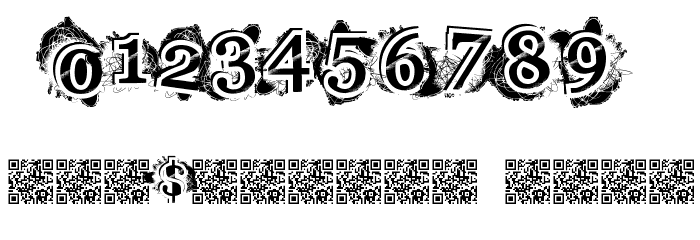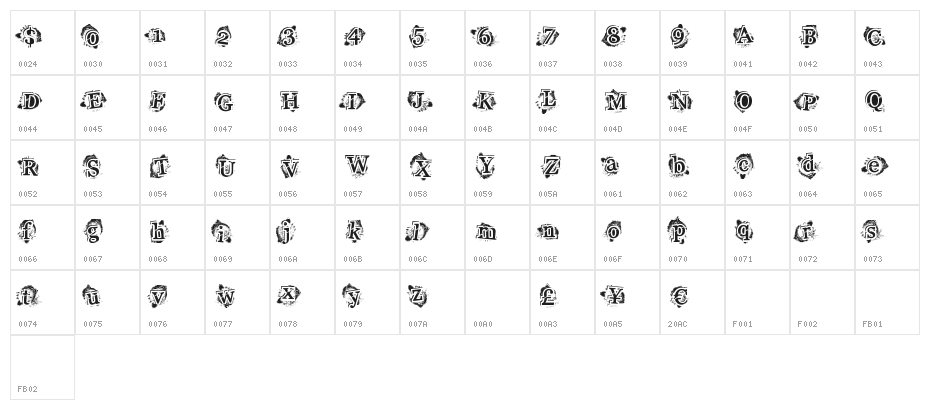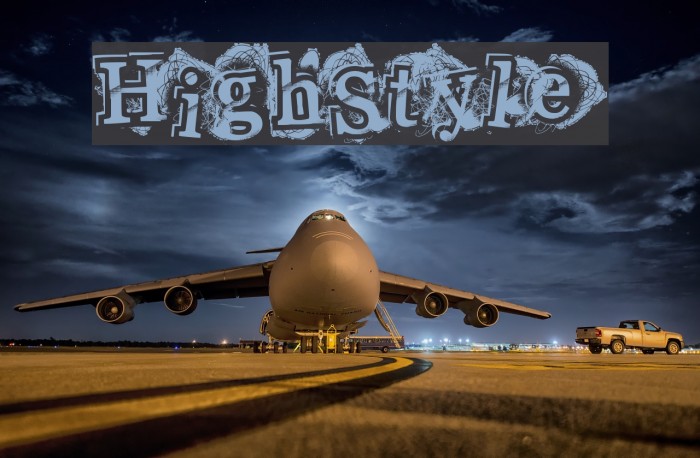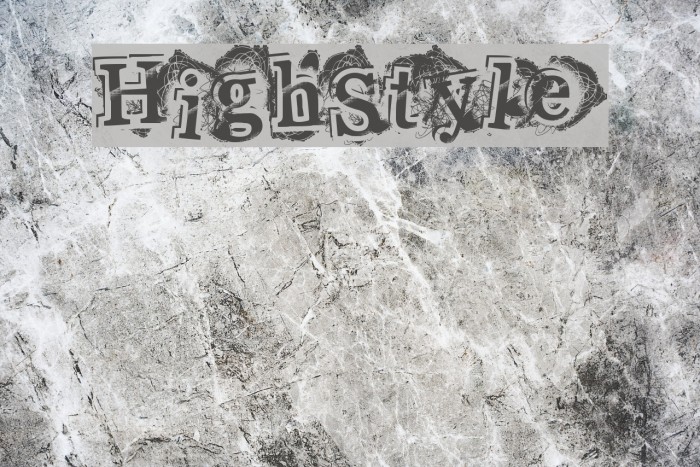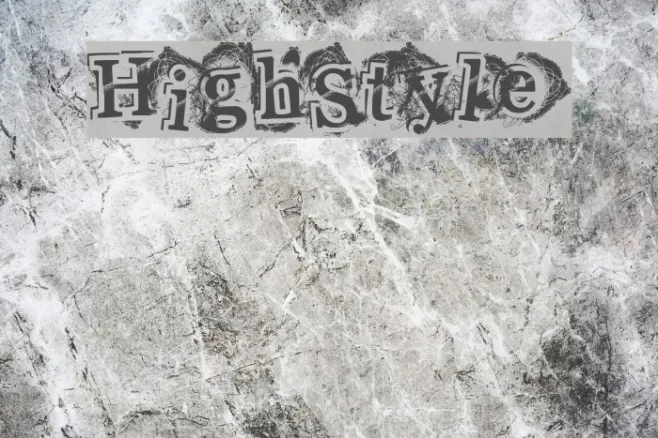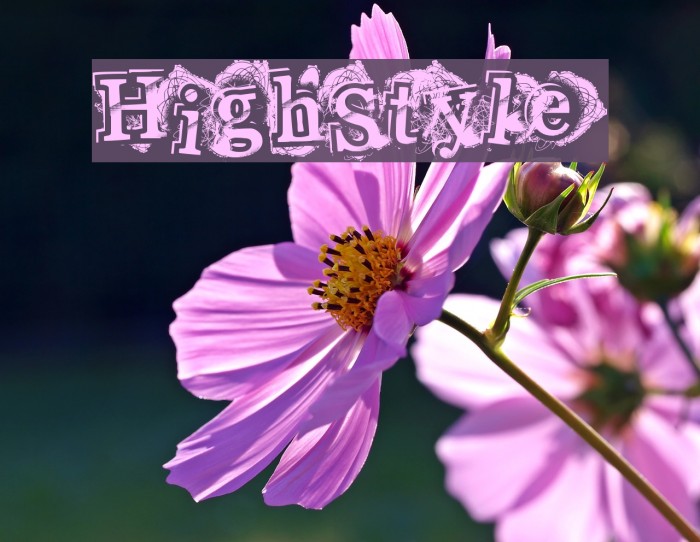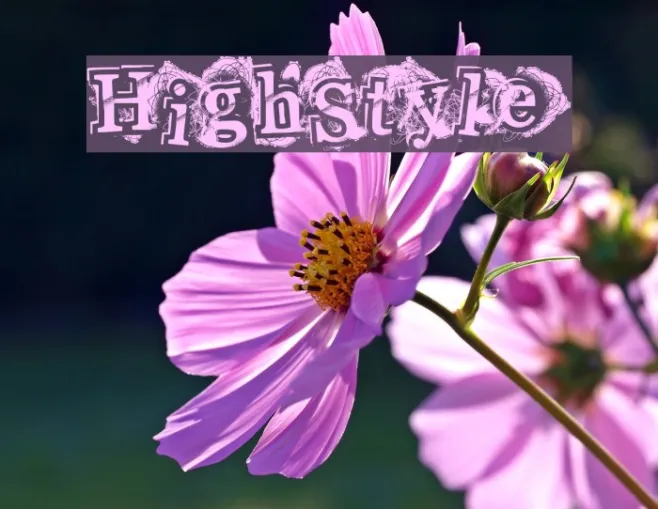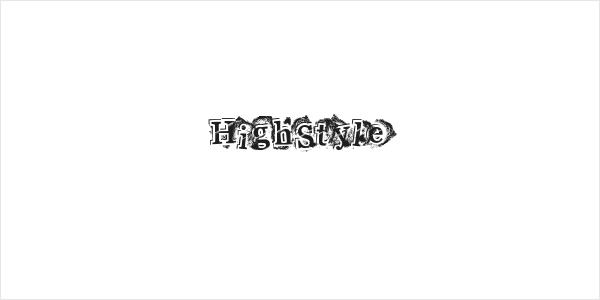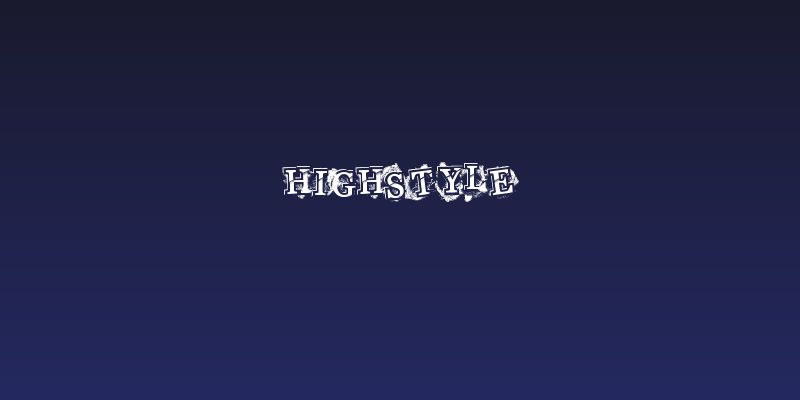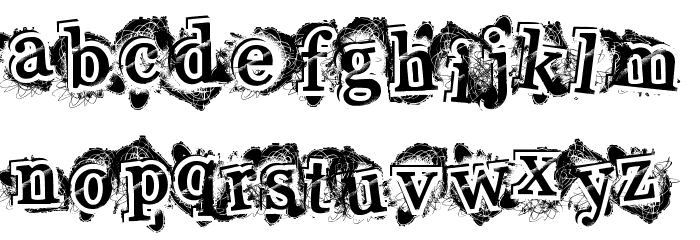
HighStyle Font
HighStyle Description
This font features a bold and decorative style with a grunge effect. Each character is outlined with a thick black border, giving it a striking appearance. The interior of the letters is filled with a textured, distressed pattern that adds depth and complexity. The uppercase and lowercase letters maintain a consistent style, with the uppercase being slightly more pronounced. Numbers and special characters follow the same design, ensuring uniformity across all elements. This font is ideal for projects that require a bold statement and a touch of artistic flair.
| Proposed Projects | Ideal for posters, album covers, and branding that requires a bold, artistic touch. |